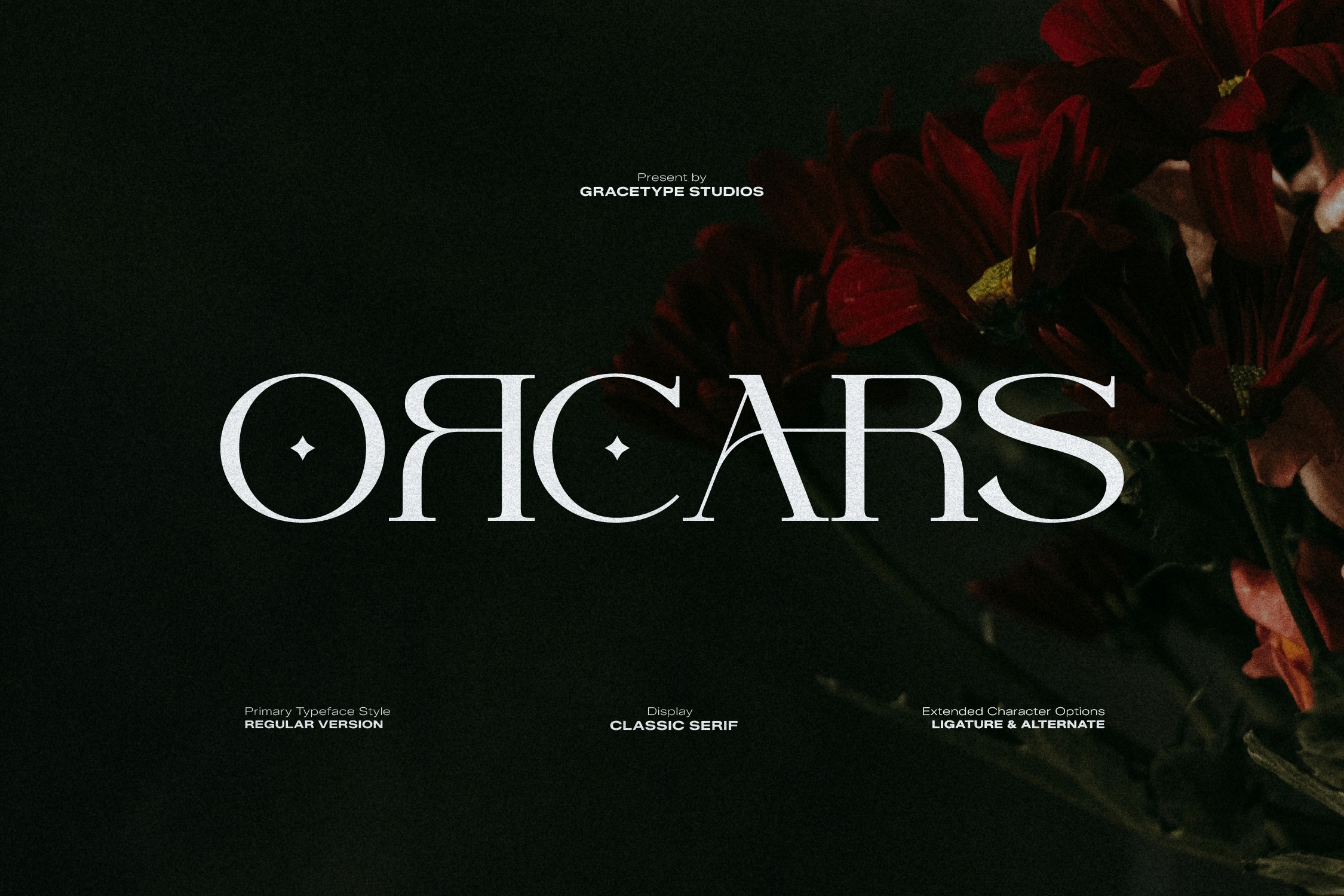
Orcars Font
Orcars Font is a flexible and reliable font created to fit multiple design needs, from branding and packaging to social media and editorial layouts. Orcars | Classic Serif Font, from Gracetypestudio, suitable for any projects such as: logos, branding projects, homeware designs, product packaging, mugs, quotes, posters, shopping bags, t-shirts, book covers, name card, invitation cards, greeting cards, label, photography, watermark, special events, and all your other lovely projects that need a Serif taste.